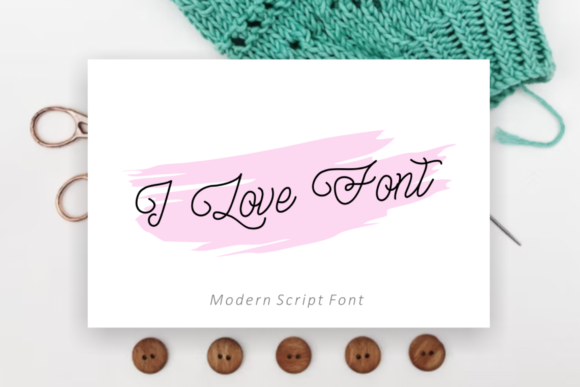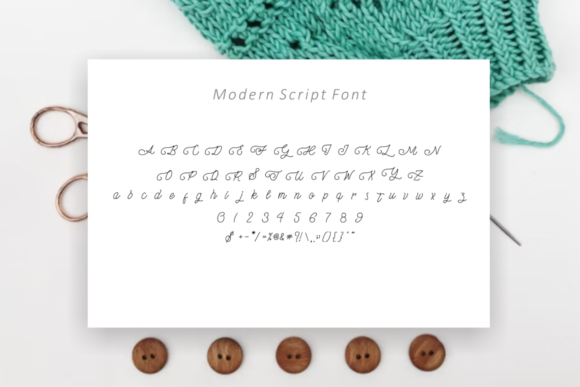
Gianto Font
About Gianto Font
Gianto is a delicate and vintage styled and authentic script font. The font is suitable for any branding project like logo, t-shirt printing, esport, and many more. outstanding in a wide range of contexts.